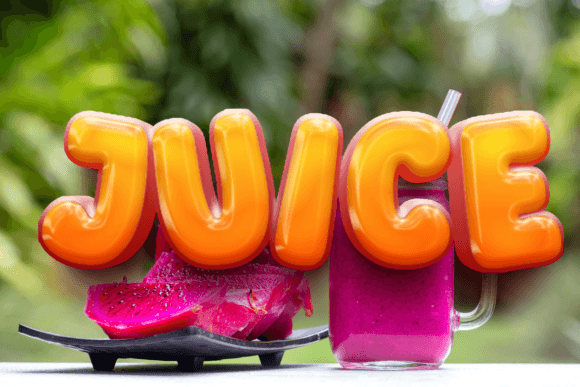
Get Ready to Pop with the Bubble Party Font!
You know that moment when you’re brainstorming ideas for a project and suddenly, a burst of creativity hits you? It’s like a party in your head, and everyone’s invited! For me, it’s always about finding the perfect font to bring that extra oomph to my designs. And, let me tell you, I’ve found the perfect companion for those playful moments – the Bubble Party Font.
This delightful display font is all about spreading joy and excitement through its bubbly curves and whimsical appearance. Whether you’re designing party invitations, posters, or any other fun project, the Bubble Party Font is sure to make your text pop with personality. As a designer, you know how important it is to have the right tools at your disposal, and the Bubble Party Font is definitely a valuable addition to your toolkit.
Bubble Party Font Key Features
- Unique Characteristics: The font features a playful, bubbly design with intricate details and a lively atmosphere, perfect for creating fun and engaging visual content.
Bubble Party Font Review
I’ve had the chance to work with the Bubble Party Font, and I must say it’s a mixed bag. ✨ Here are some things that I think work well:
- The playful, whimsical feel of the font is perfect for creating a lively and festive atmosphere.
- The font is highly customizable, making it easy to adjust the size, color, and style to fit your specific design needs.
- The bubble-inspired design elements add a fun and creative touch to any design project.
However, I’ve also encountered some limitations ⚠️:
- The font can be quite busy and overwhelming if used in large quantities, which can make it difficult to read.
- The font is not ideal for use in formal or professional settings, as it may come across as too playful or immature.
Overall, I think the Bubble Party Font is a great choice for designers who want to add a playful and festive touch to their projects. However, it’s not suitable for every project or audience. With a little creativity and restraint, this font can be a fun and effective design element.
The Bubble Party Font is ideal for:
- Birthday party invitations and decorations.
- Children’s party materials and graphics.